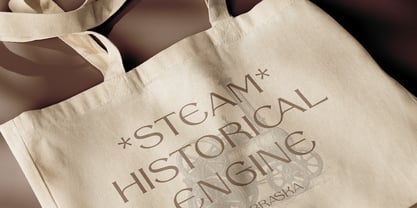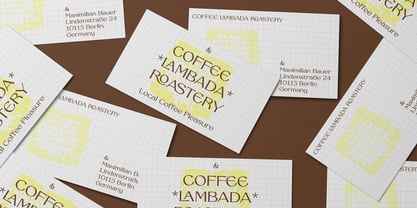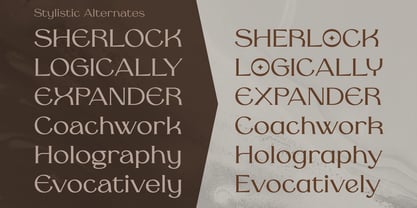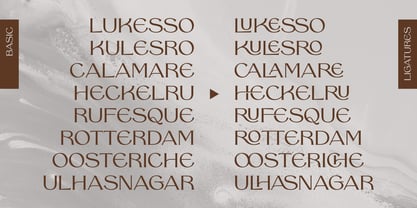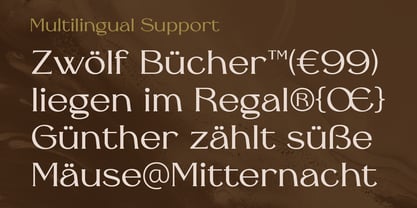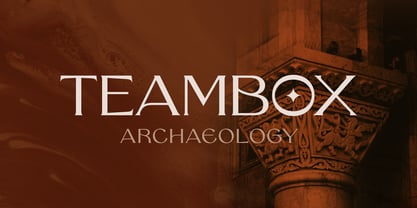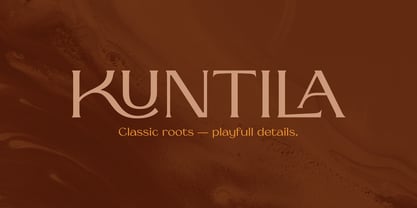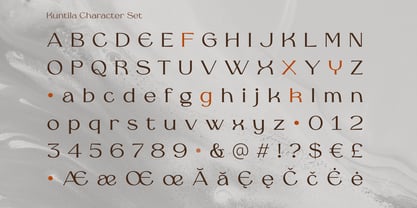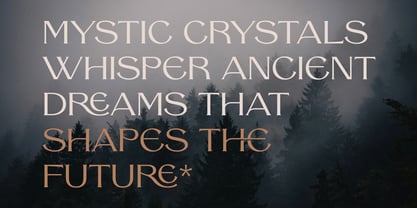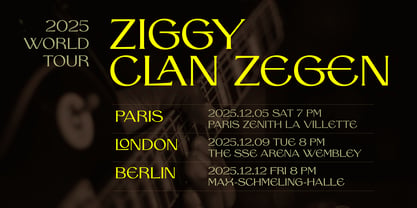
Kuntila
Kuntila Font—a serif with a twist. Classic at first glance, but take a closer look and you’ll find playful curves and unexpected shapes that bring words to life. Whether you’re designing a stylish magazine cover, a bold poster, or a unique brand identity, Kuntila makes your message stand out with confidence and charm. With Regular and Italic styles, this typeface is ready to add elegance, personality, and a touch of artistic mischief to your next project.